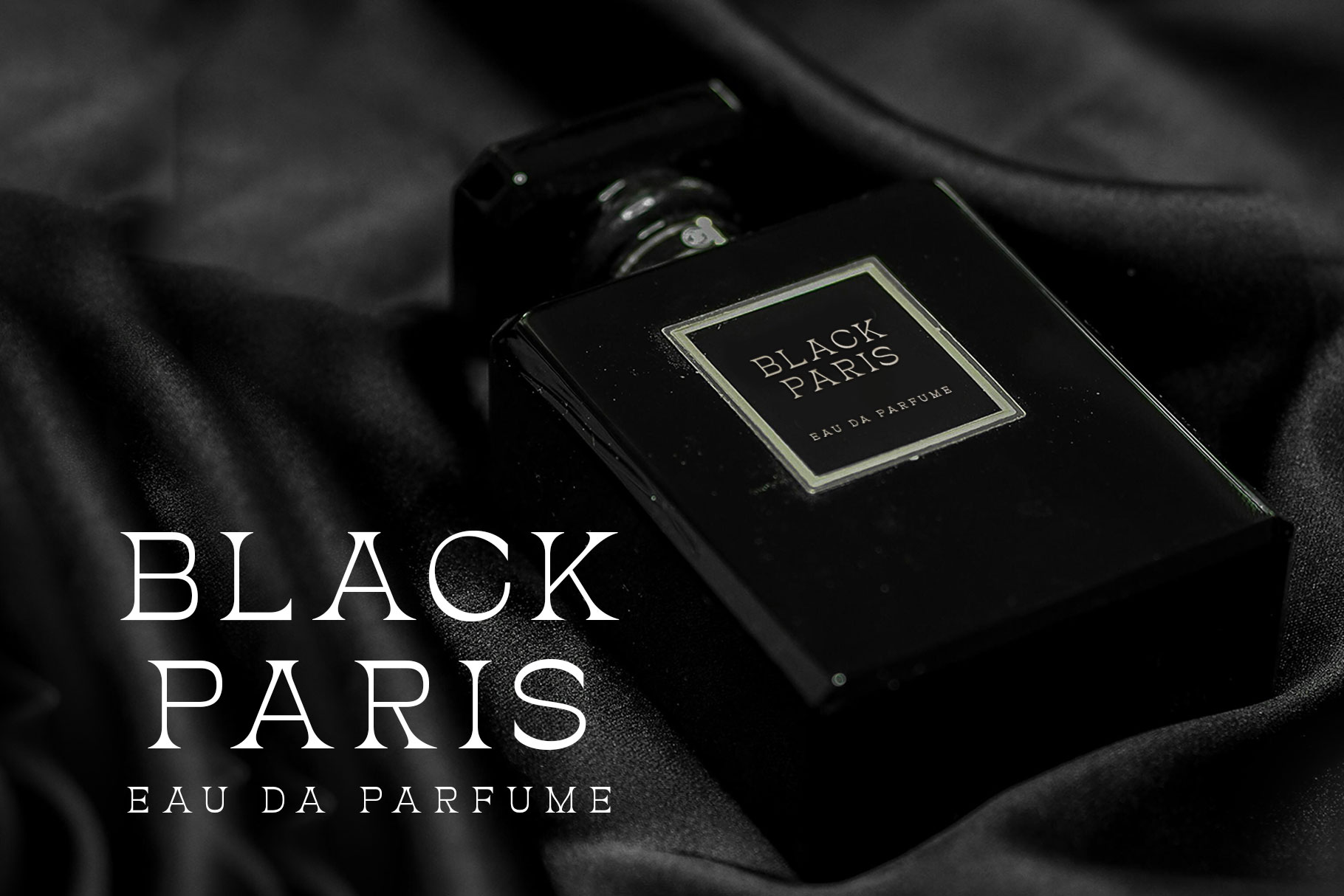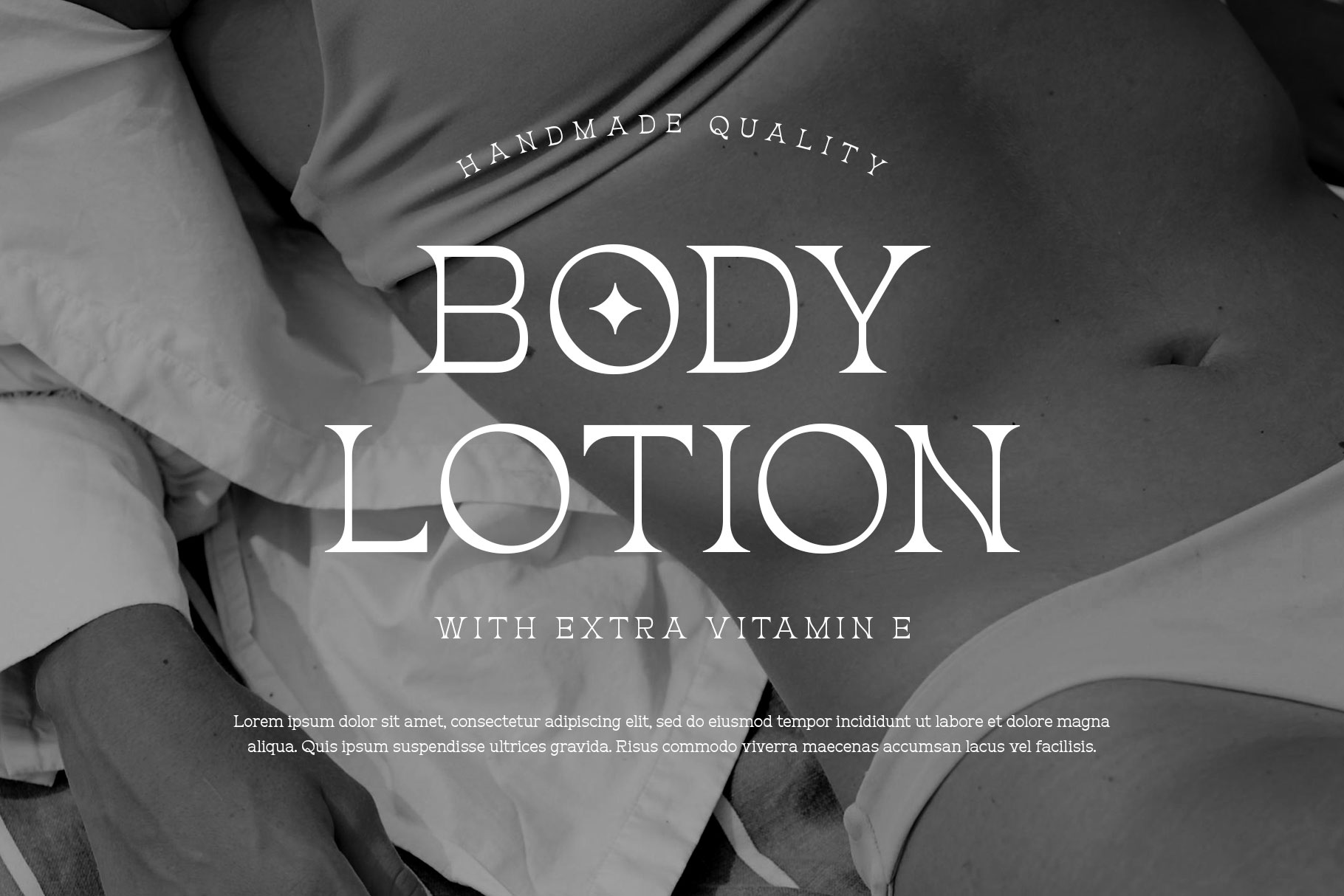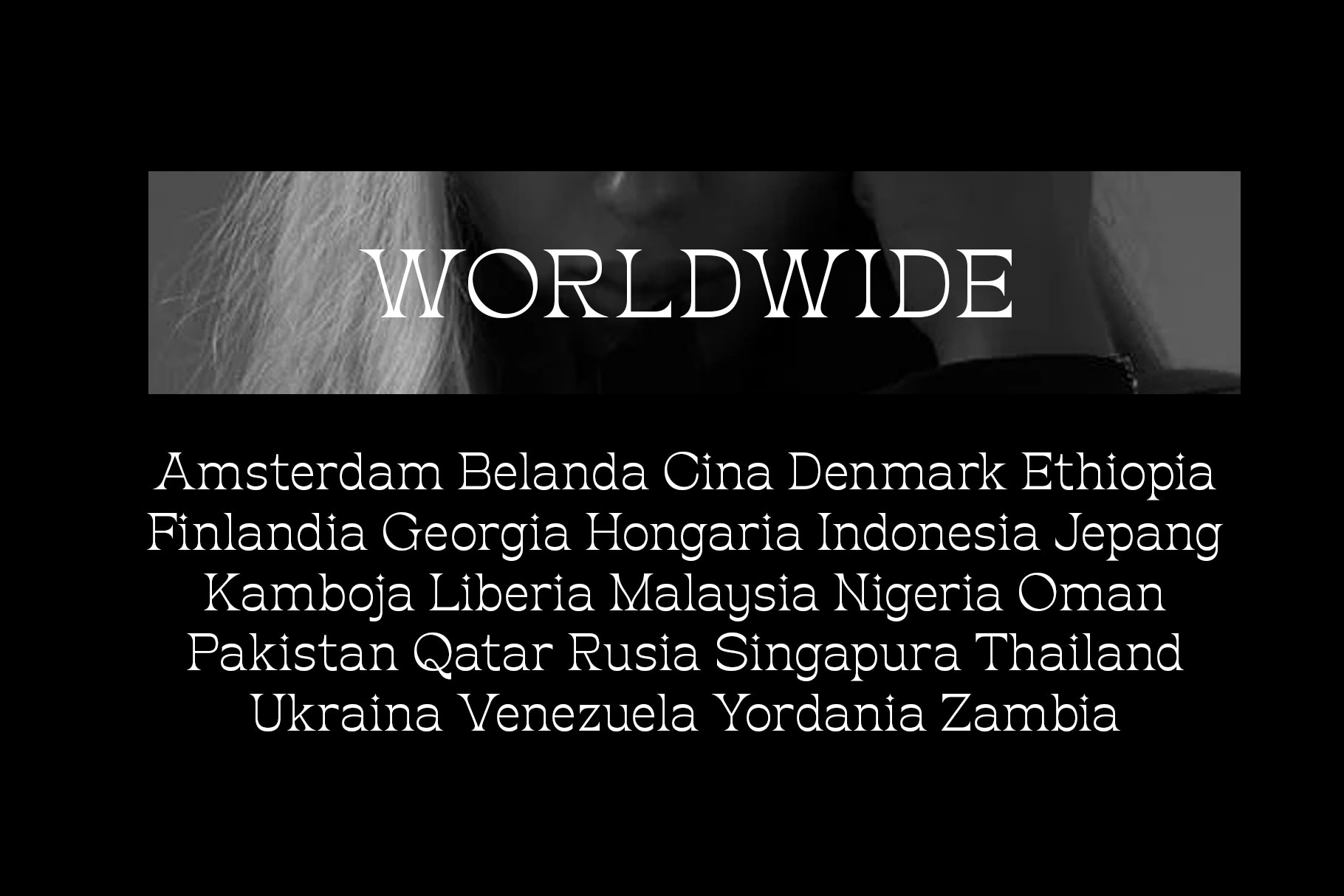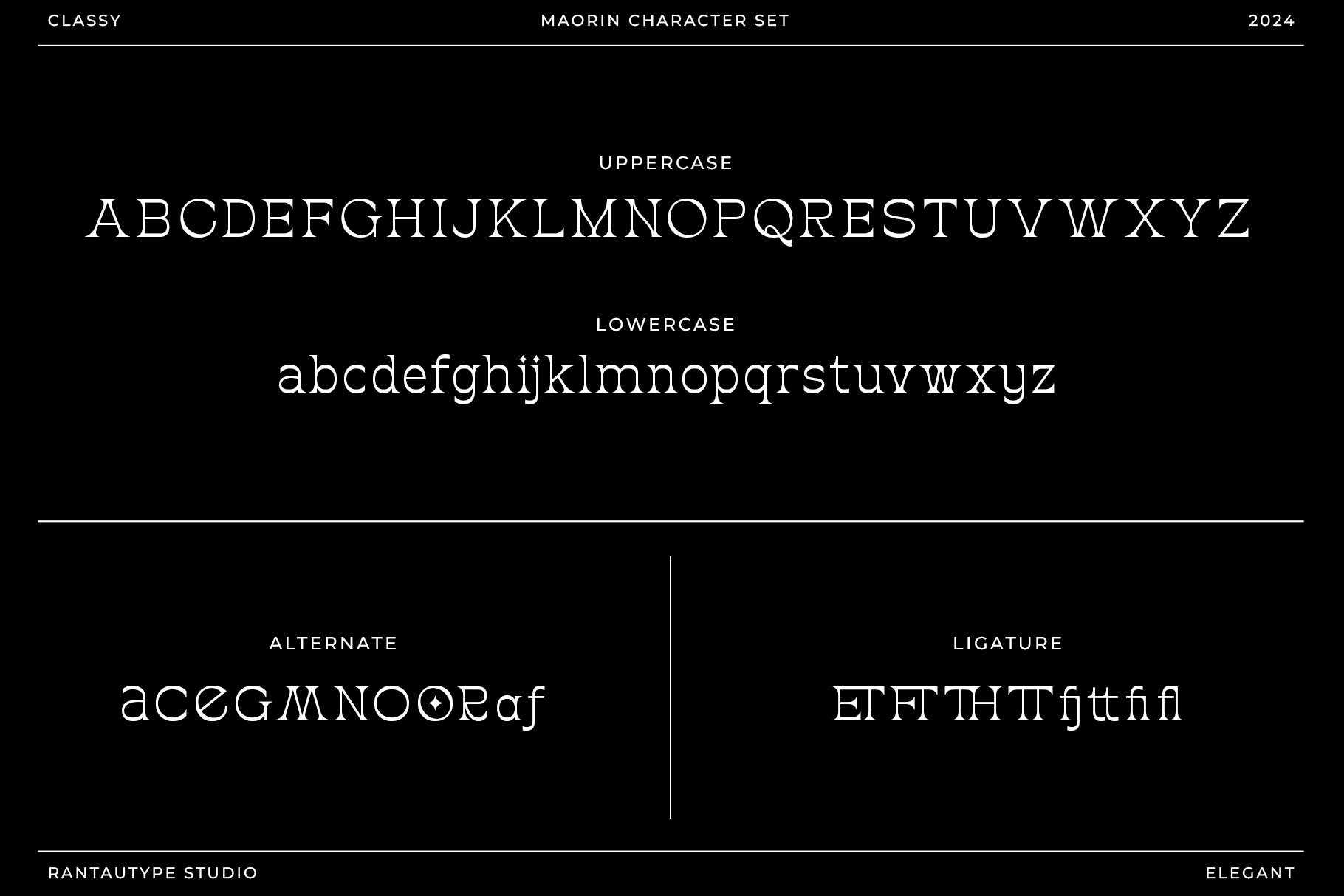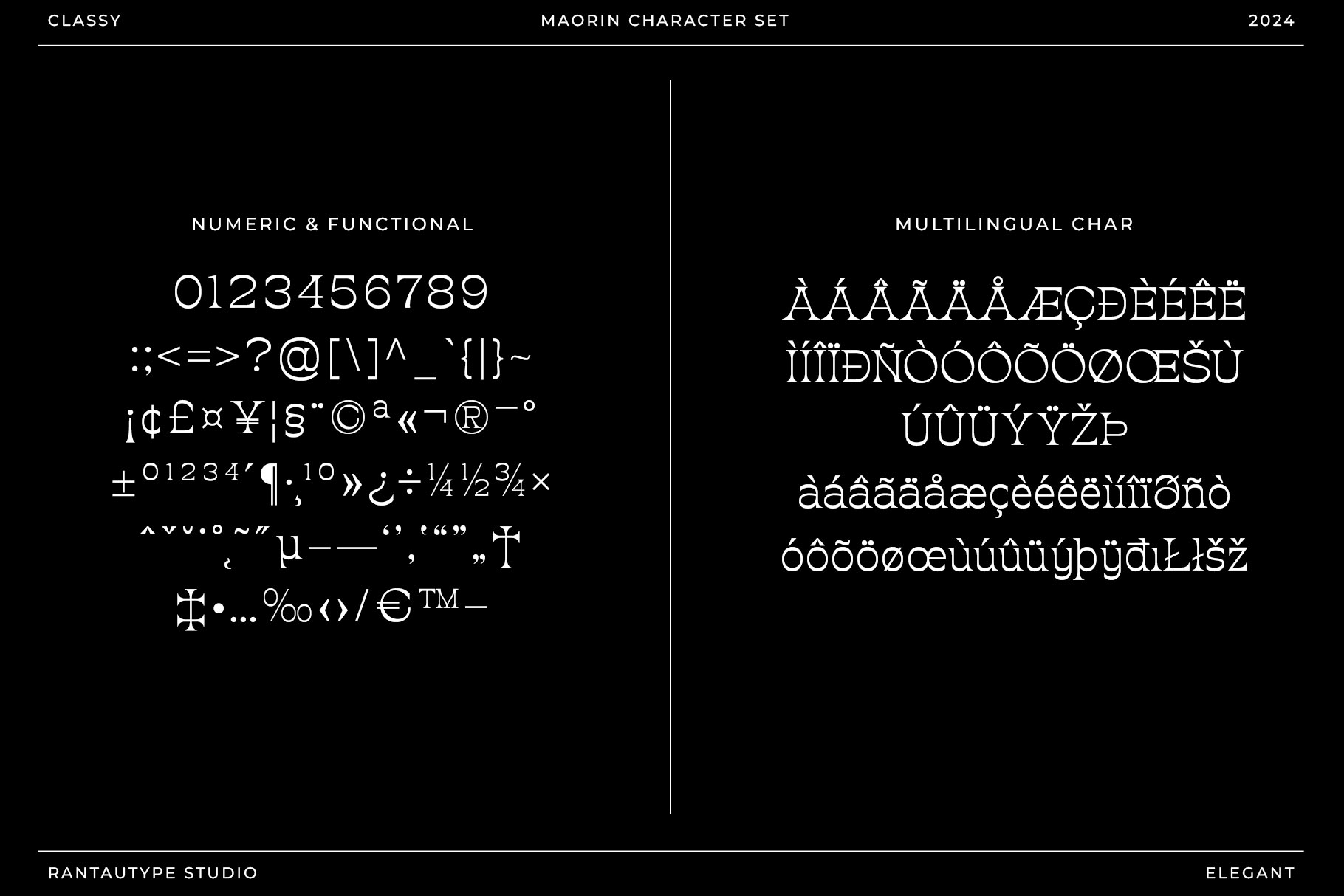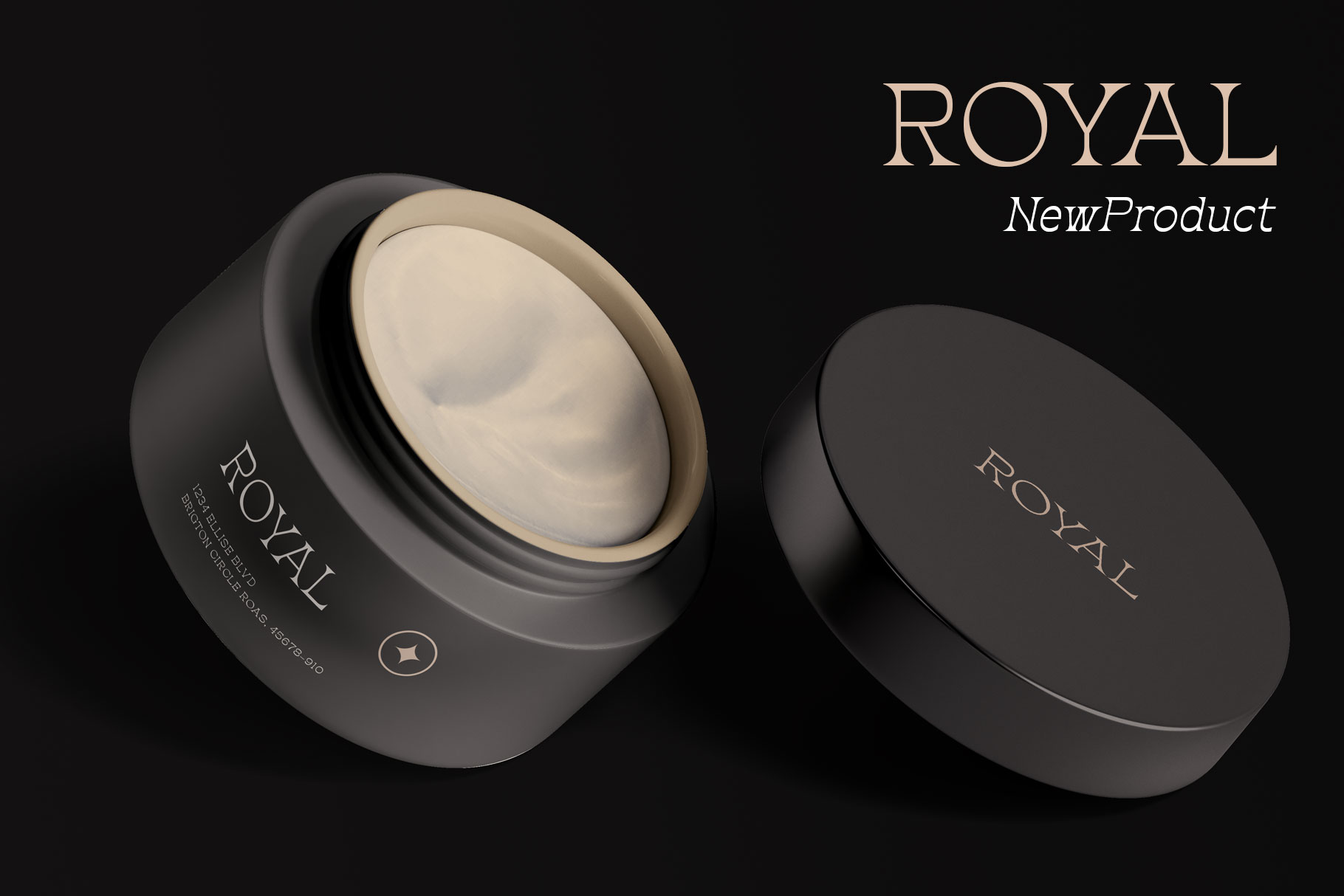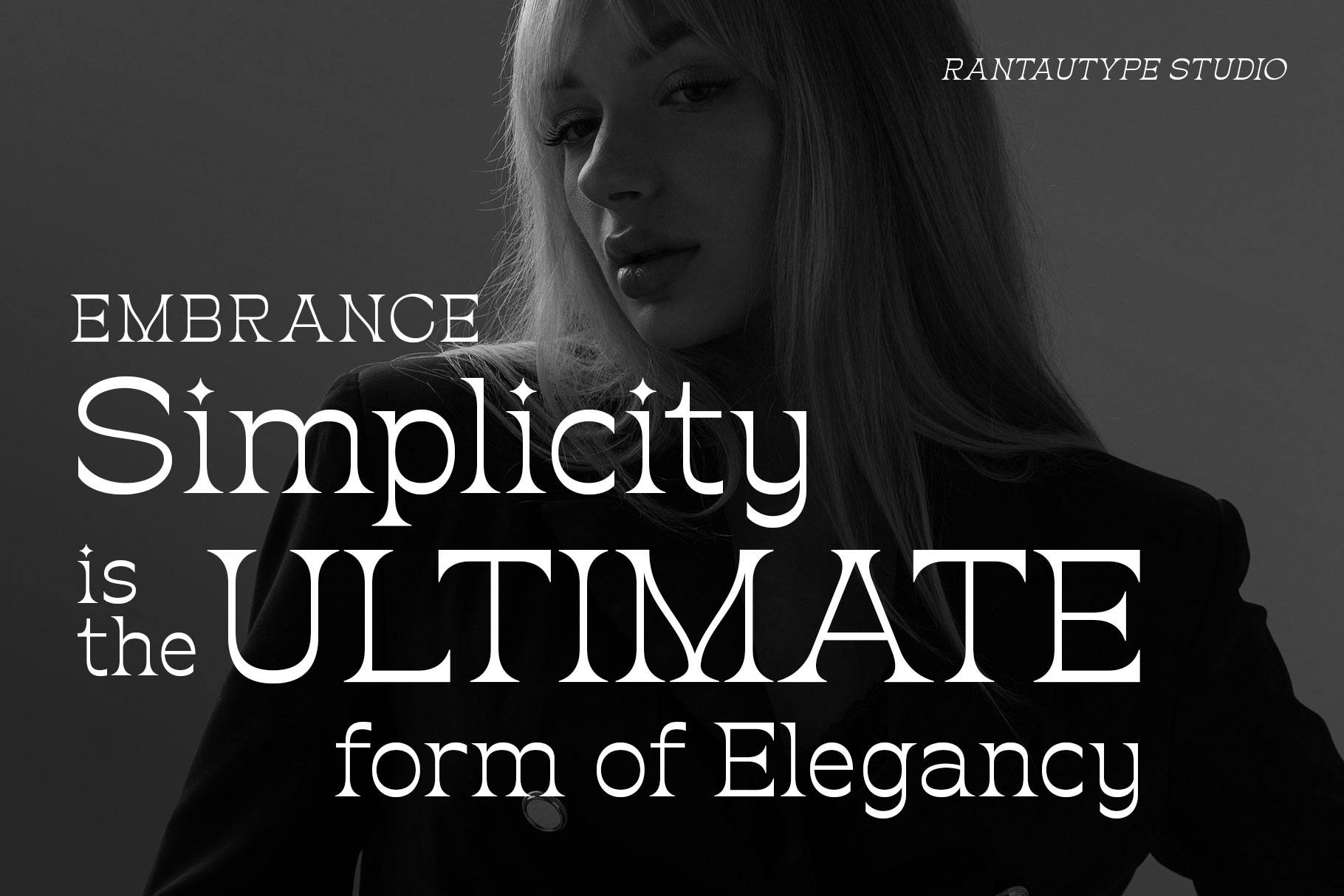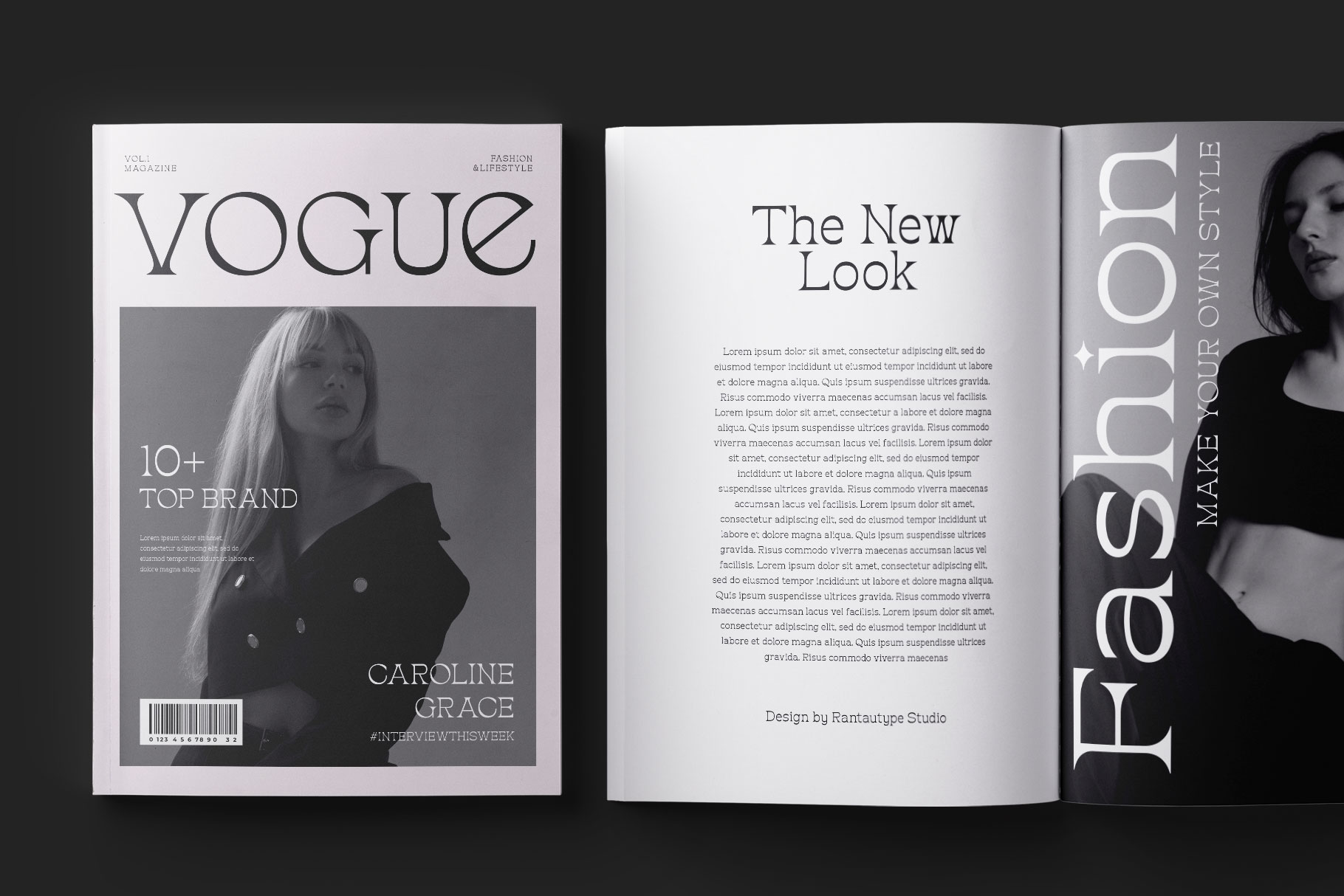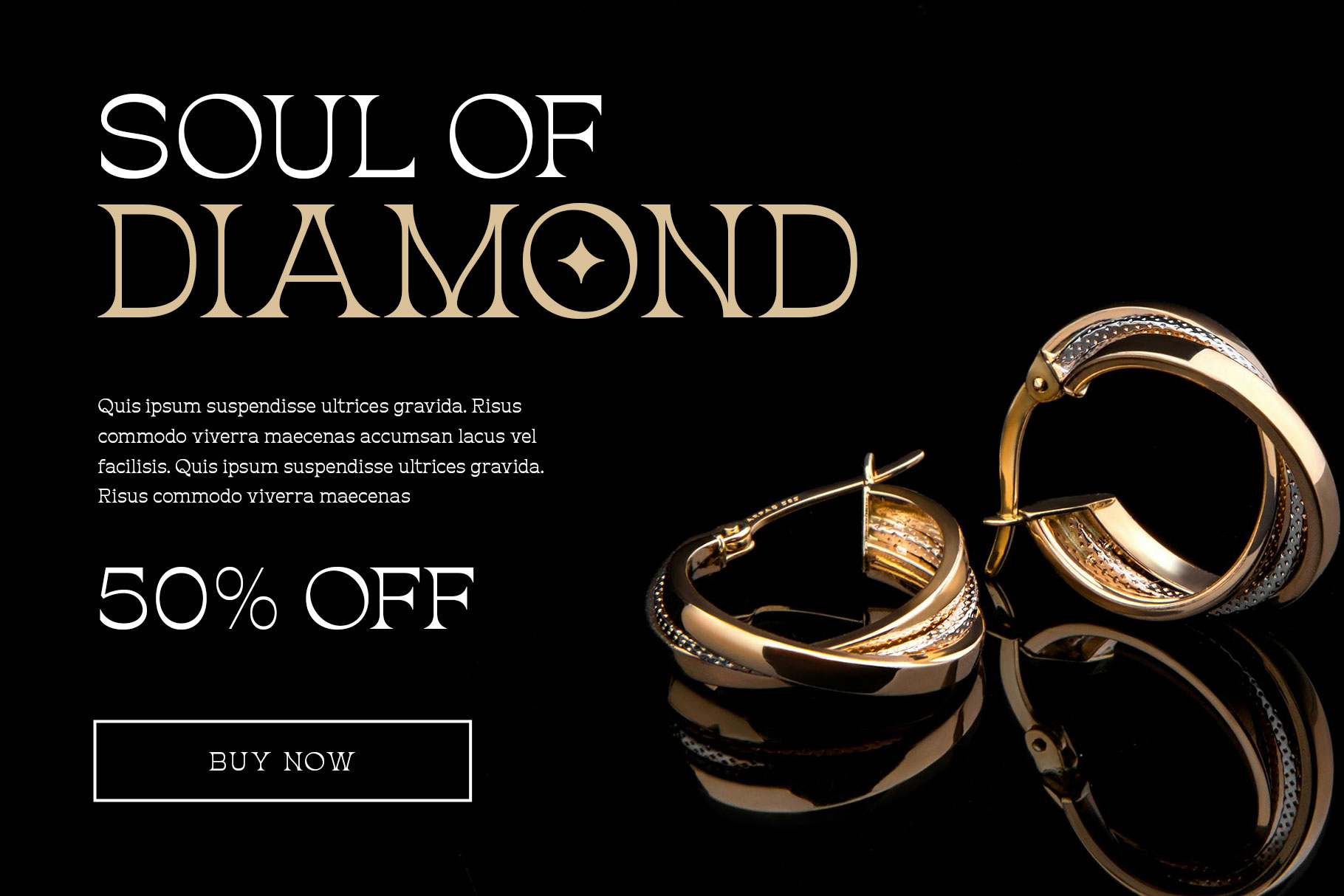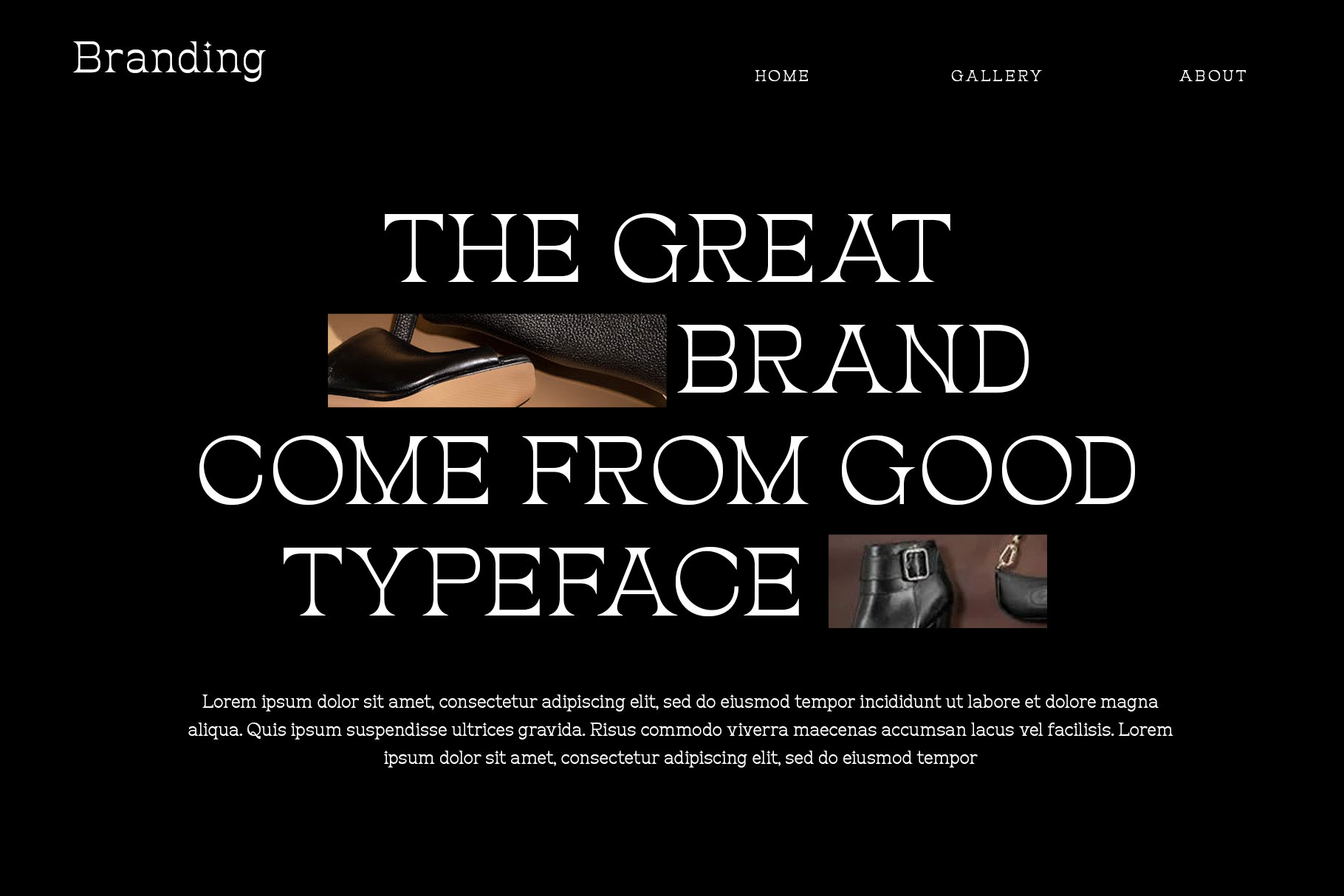
Maorin Classy Authentic Font
Maorin is authentic serif font with contast shape make elegant sense. Maorin come with powerful form and memoriable shape to create design project or branding stand out. Maorin is a perfectly choice for any creative endeavor, chic, lifestyle design such as logos, advertisements, stationery, branding project, display and magazine, invitation, corporate brand, product design, label, business project and many other project with elegant touch.